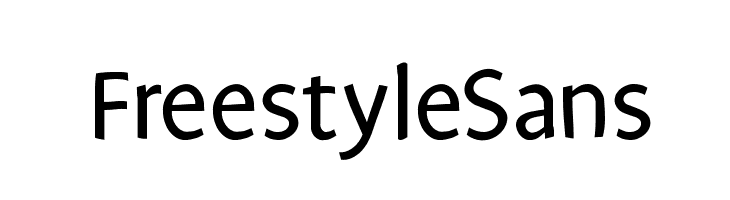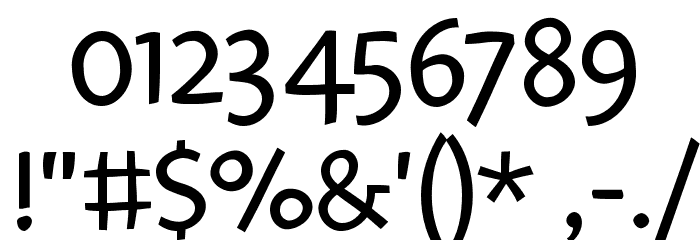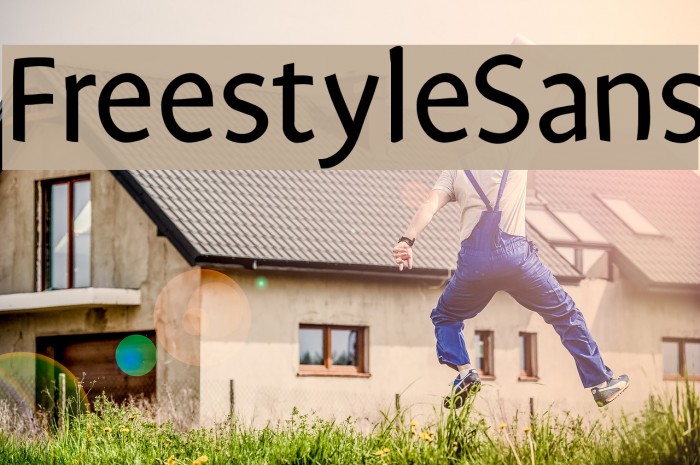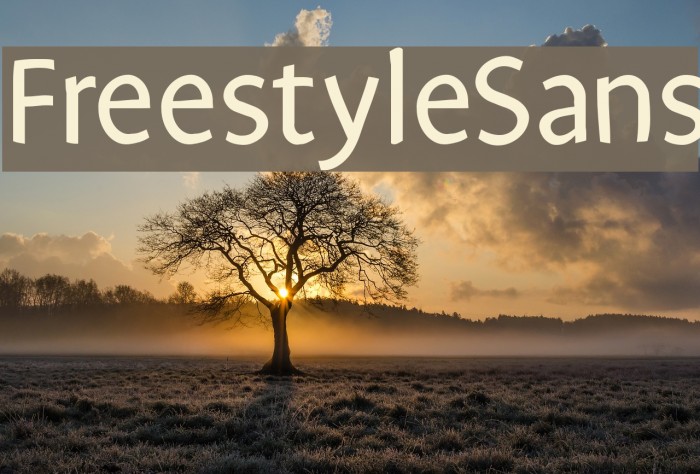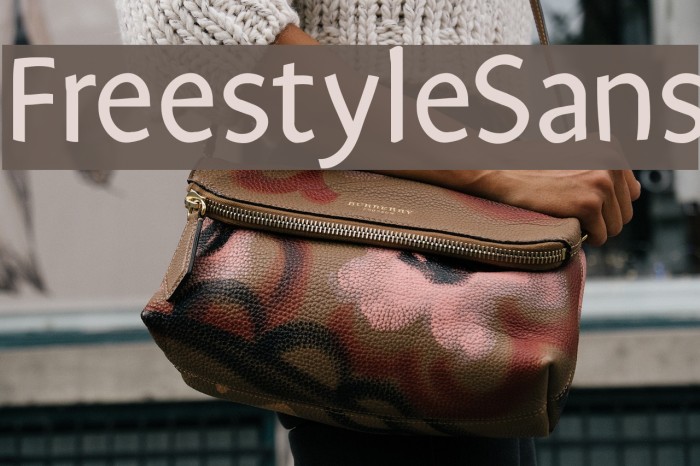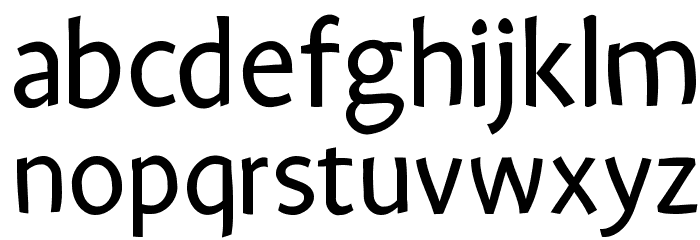
FreestyleSans Font
This font features a playful and casual style with a handwritten feel. The characters are slightly irregular, giving it a unique and informal appearance. The strokes are smooth and rounded, contributing to its approachable and friendly look. The uppercase letters are bold and slightly wider, while the lowercase letters maintain a consistent flow. Numbers and special characters are designed to match the overall style, ensuring a cohesive look across all text. This font is versatile, suitable for projects that require a touch of personality and creativity.
A playful, handwritten-style font with smooth, rounded strokes.
• Proposed Projects: Ideal for greeting cards, children's books, casual branding, and social media graphics.
• Category: Handwritten
• Contrast: Low
• Overall Style: Casual
• Use Case: Logos, Headlines, Informal Text